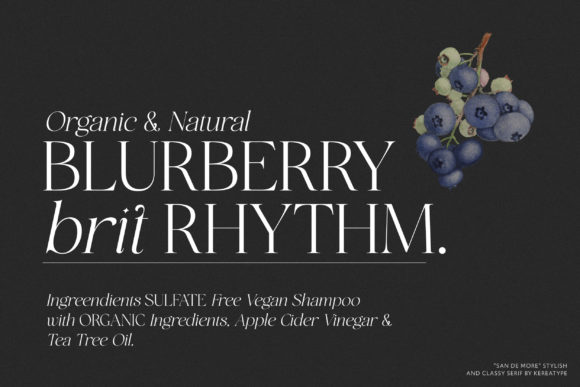
San De More Font
Introducing the new ‘San de More’ Serif Font Family. It is a fashionable, modern, and elegant serif font with some sexy stylish extras.
This font is perfect for branding and logo design. You will get classy, elegant, and certainly unique logos with this font.